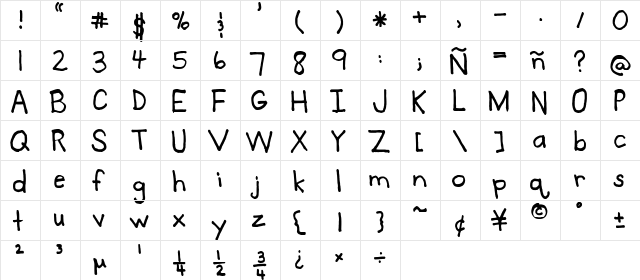
FG Jill Regular Font Preview
FG Jill Regular
FG Jill Regular Font Details
| Foundry | Font Garden |
| Designer | Font Garden |
Design Context for FG Jill Typeface
FG Jill takes a measured approach to typography — its balanced proportions and neutral character make it a reliable workhorse for both digital and print work.